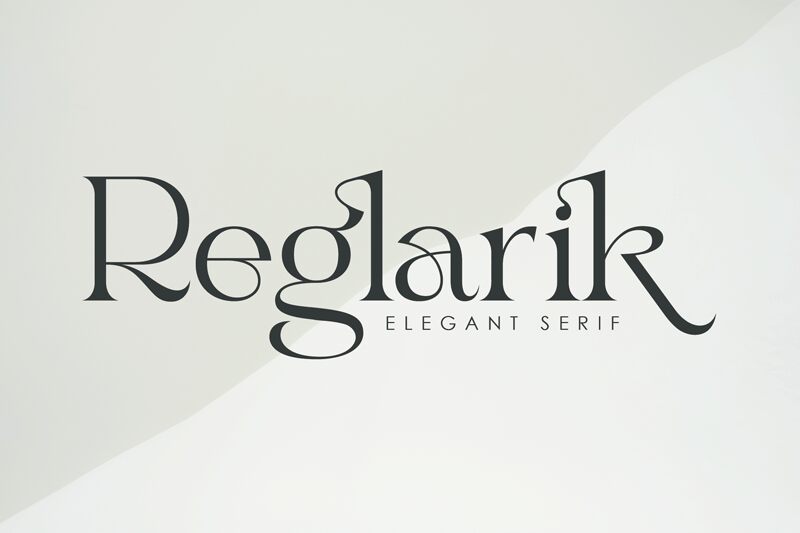
Reglarik Italic
Reglarik Italic font by Denustudios is a charming serif constructed with elegance, sophistication, and modern aesthetics. Thin swirling delicate curls add to its graceful curves creating a stylish and classy appearance. The versatile typeface has a fancy look but also looks friendly and inviting for the end reader.
Ideas for implementing Reglarik Italic for free include logos, book titles, movie titles, fashion branding, or magazines. It works wonderfully when over clothes fabrics or on business cards presenting brands of any size or field of expertise. Finishing with full-scale promotional posters is yet another way this font can be put to incredibly good use.
Features:
- Uppercase and lowercase letters
- Numerals
- Punctuation marks (OpenType Standard)
- Accents (multilingual characters)
- Ligatures and alternative stylistic sets